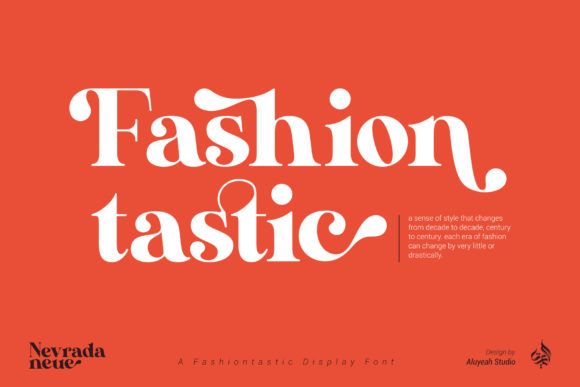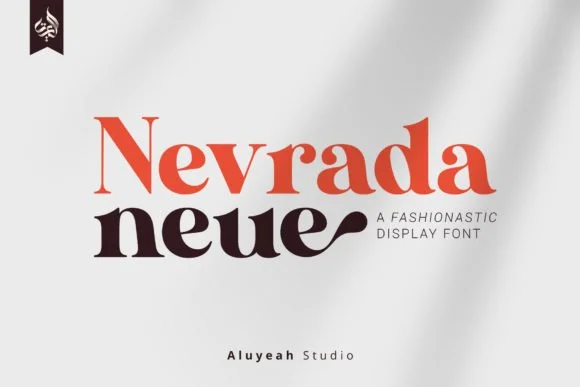
Nevrada Neue Font
Nevrada Neue Font is a magical display font carefully created with a touch of elegance. It will elevate a wide range of design projects to the highest level, be it branding, headings, wedding designs, invitations, signatures, logos, labels, and much more!
Where Nevrada Neue Font works best
Thumbnails and covers
Nevrada Neue Font is built to be recognised small. Three words, high contrast, and it survives being scaled to a phone screen.
Event and match posters
Display letters at full width make a date and a name readable across a room, which is all a poster has to do.
Merch and streetwear
Heavy display shapes print cleanly on fabric and stay legible when the garment moves.
What kind of work does Nevrada Neue Font suit?
It sits in the Display Fonts group and reads as branding, display, display fonts, elegant. That makes it a candidate wherever those qualities help: headings, packaging, social graphics and brand work. Set it at the size you plan to use before deciding.